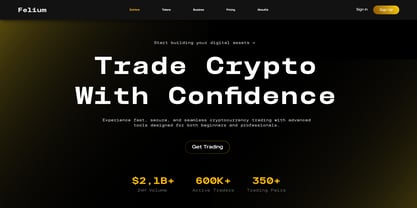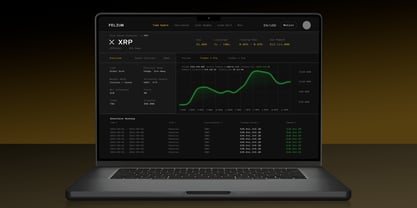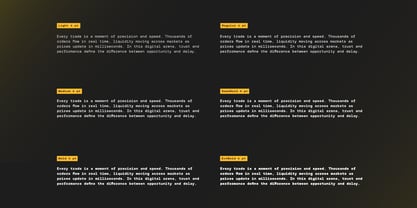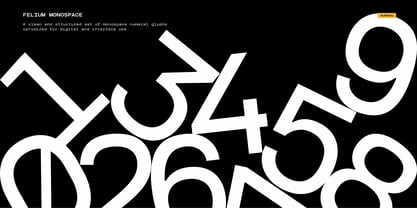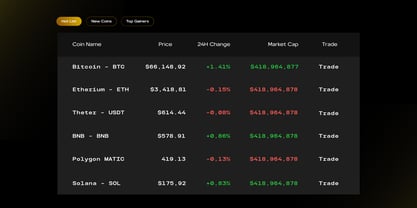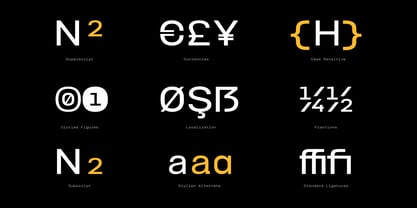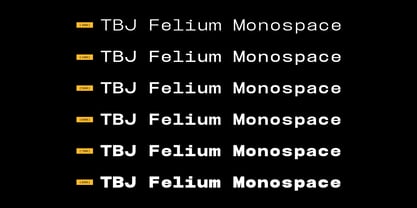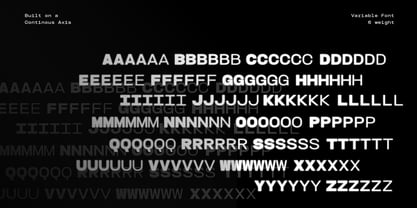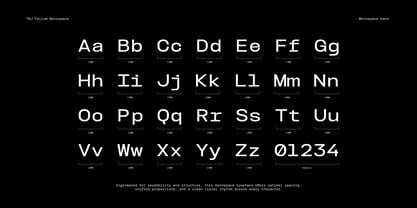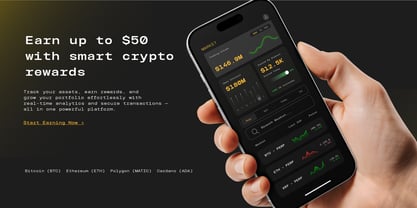
TBJ Felium Mono
by Taboja Studio
The TBJ Felium Mono Font Family was designed by Yusilo Oktaprima Ardani and published by Taboja Studio. TBJ Felium Mono contains 6 styles and family package options. More about this family
Felium Monospace is a contemporary monospaced sans serif typeface, meticulously engineered with precision, clarity, and functional balance. Built on a continuous axis and available in six calibrated weights, Felium is designed to perform seamlessly in modern digital environments while maintaining a clean, rational aesthetic. Consistent character width across the entire glyph set ensures perfect alignment and exceptional readability, making Felium Monospace ideal for coding, UI systems, dashboards, fintech platforms, technical documentation, and data-driven layouts. Its structured geometry and controlled proportions create a stable visual rhythm, supporting dense information without sacrificing clarity. While rooted in the logic of classic monospace design, Felium is refined for contemporary use combining technical accuracy with a modern, minimal expression. Extended multilingual Latin support, optimized numerals, and comprehensive OpenType features allow the typeface to transition effortlessly from functional interfaces to editorial and branding applications. Felium Monospace represents utility elevated by thoughtful design precise, reliable, and built for systems that demand consistency and performance.